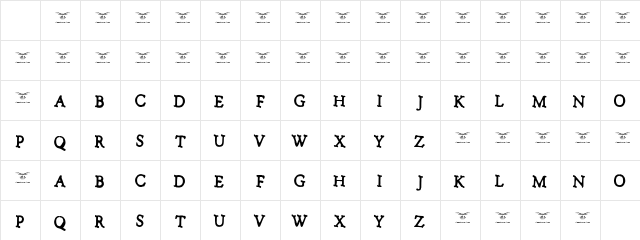
Complete No talking please Regular glyph index. Displaying only characters natively supported by No talking please Regular font.
No talking please is a composed and adaptable typeface that performs quietly and consistently across a wide range of design contexts.